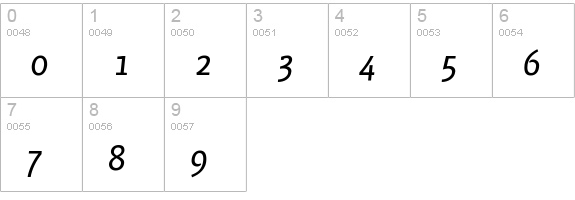
PFMuse-Italic Font Details
PFMuse-Italic is a distinctive, italic variant in the PFMuse typeface family \xE2\x80\x94 well suited to design and typography projects.
PFMuse-Italic is a sophisticated and elegant font that exudes a sense of creativity and refinement. Its sleek and modern design makes it perfect for a wide range of design projects, from branding to editorial design. The italic style adds a touch of sophistication and flair, making it stand out from other fonts. What makes PFMuse-Italic even more appealing is that it is available for free download at FontsMarket.com. This means you can easily access this stunning font and use it in your projects without any cost. Whether you're a designer looking for a stylish font to elevate your work or a content creator seeking a unique typeface, PFMuse-Italic is a versatile choice that won't disappoint. Download it now and add a touch of elegance to your designs.